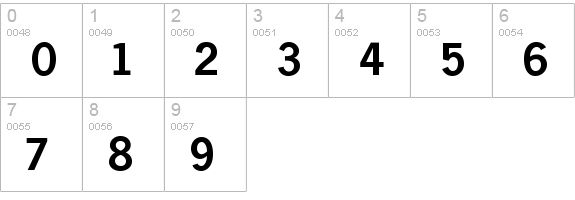
NewsGothicBold Font Details
NewsGothicBold is a versatile and modern font that exudes confidence and professionalism. Its bold and sleek design makes it perfect for headlines, titles, and any text that needs to make a bold statement. The strong and clean lines of NewsGothicBold ensure readability and impact, making it a popular choice for graphic designers and creatives alike. And the best part? NewsGothicBold is available for free download at FontsMarket.com! This means you can easily access and use this premium font in your projects without any cost. Whether you're designing a website, creating a poster, or crafting a logo, NewsGothicBold will elevate your design with its bold and distinctive style. Download NewsGothicBold today and take your typography game to the next level!